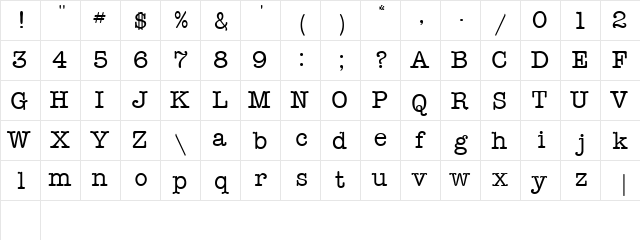
TypeWriterTwo Regular
Design Context for TypeWriterTwo Typeface
TypeWriterTwo brings the precise, column-aligned rhythm of monospaced typography to designs that value technical clarity and systematic order.
Well-suited to data-driven dashboards, coding tutorials, and any design that wants to reference the world of programming.
Pro Tip: Use TypeWriterTwo with slightly increased line-height for extended reading — fixed-width spacing can feel dense in longer passages without extra breathing room.